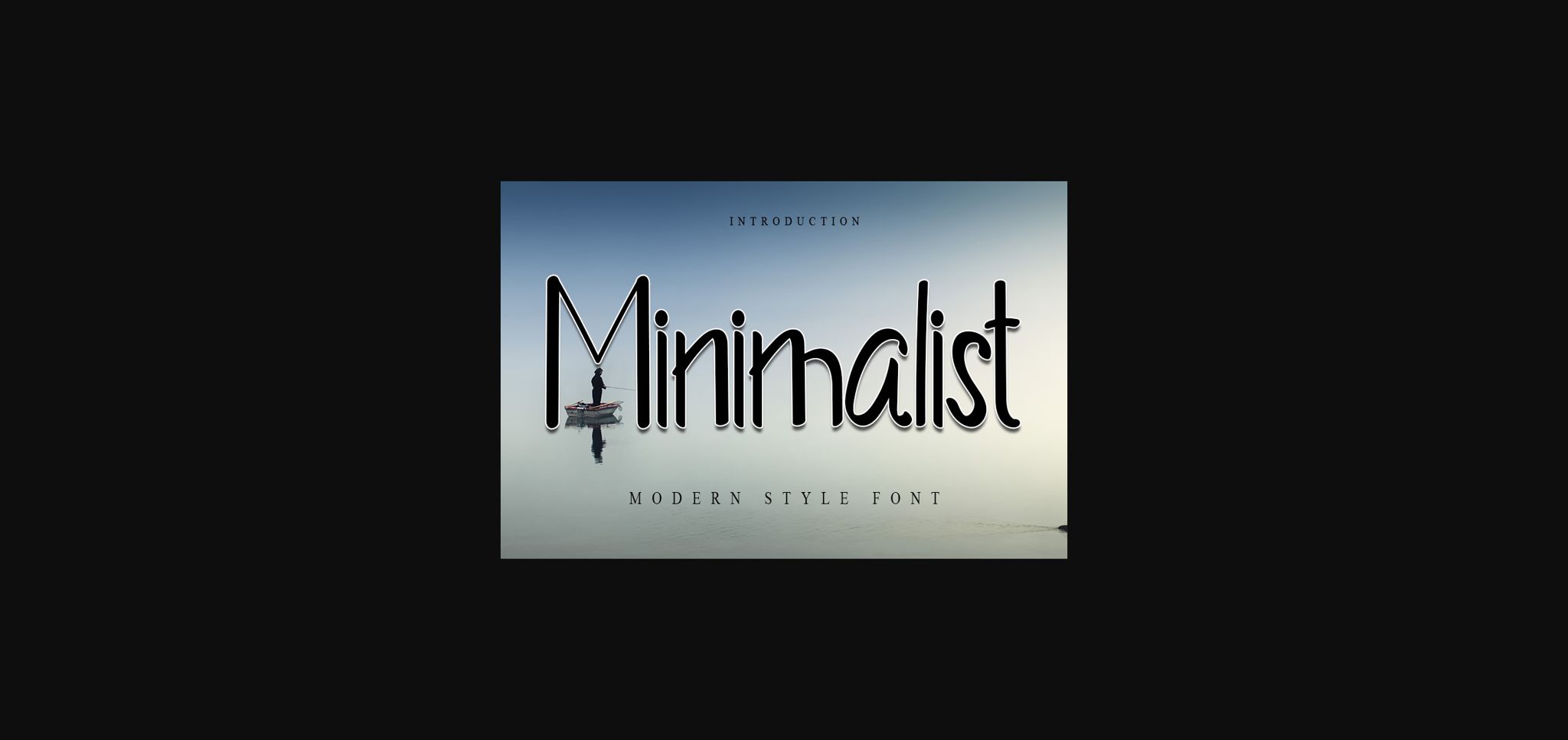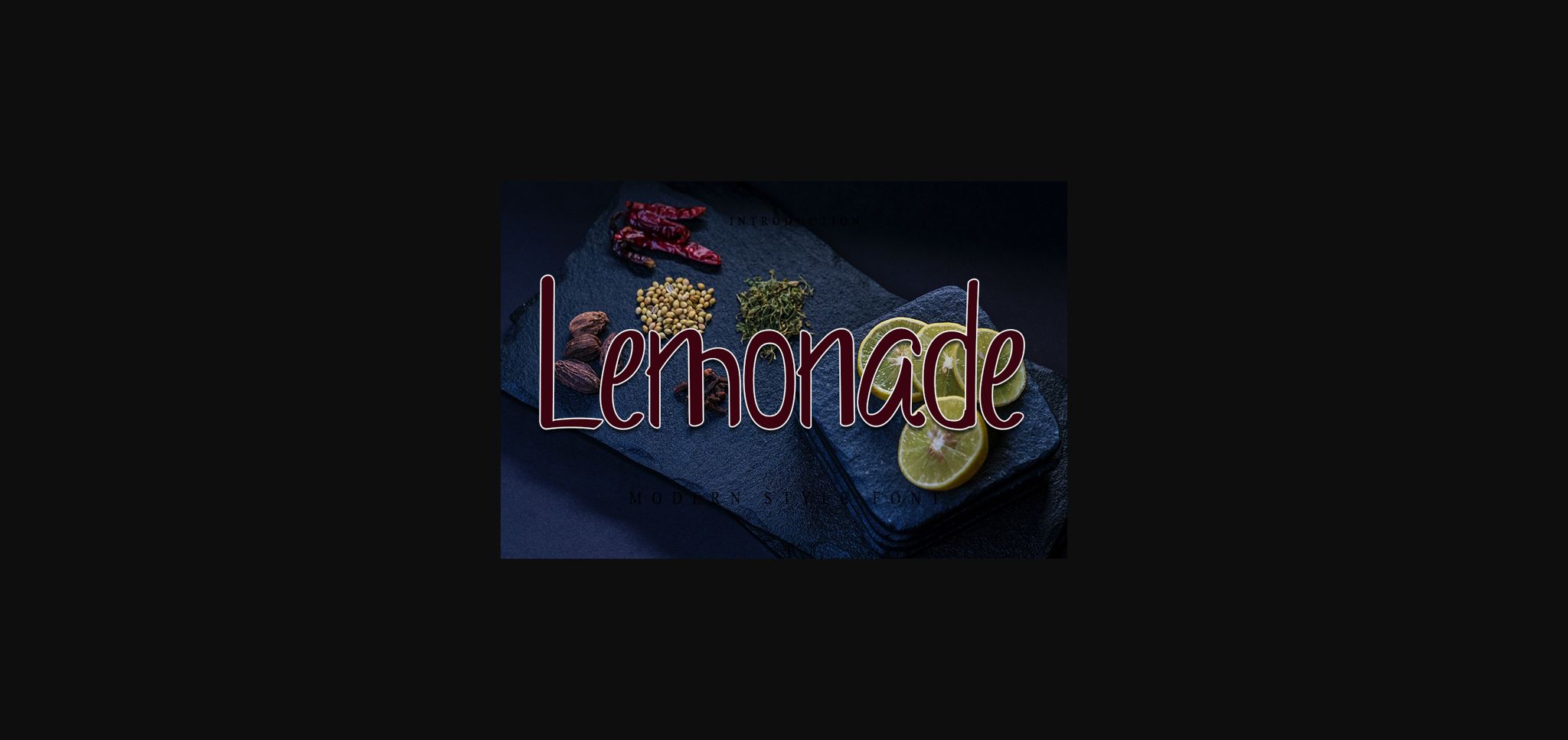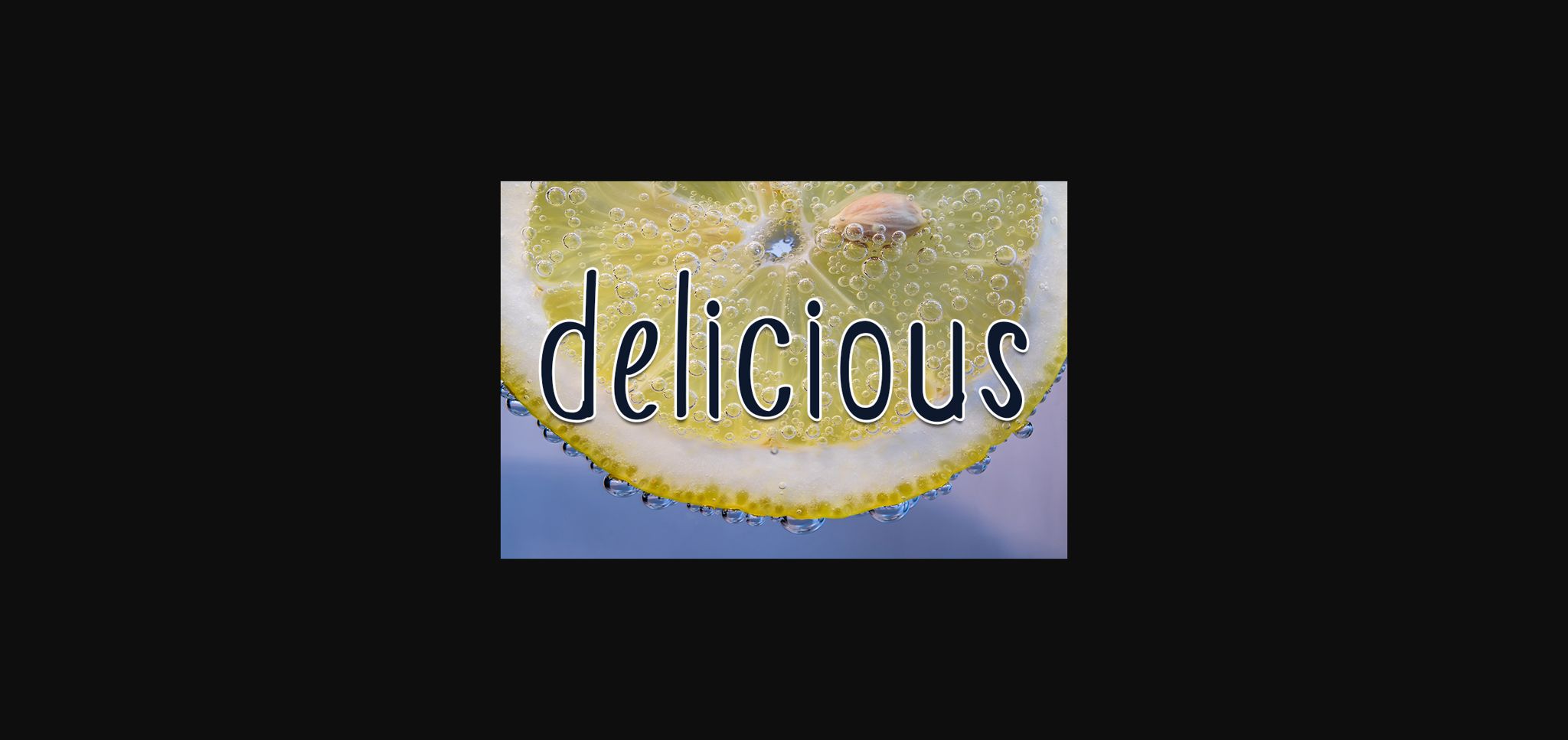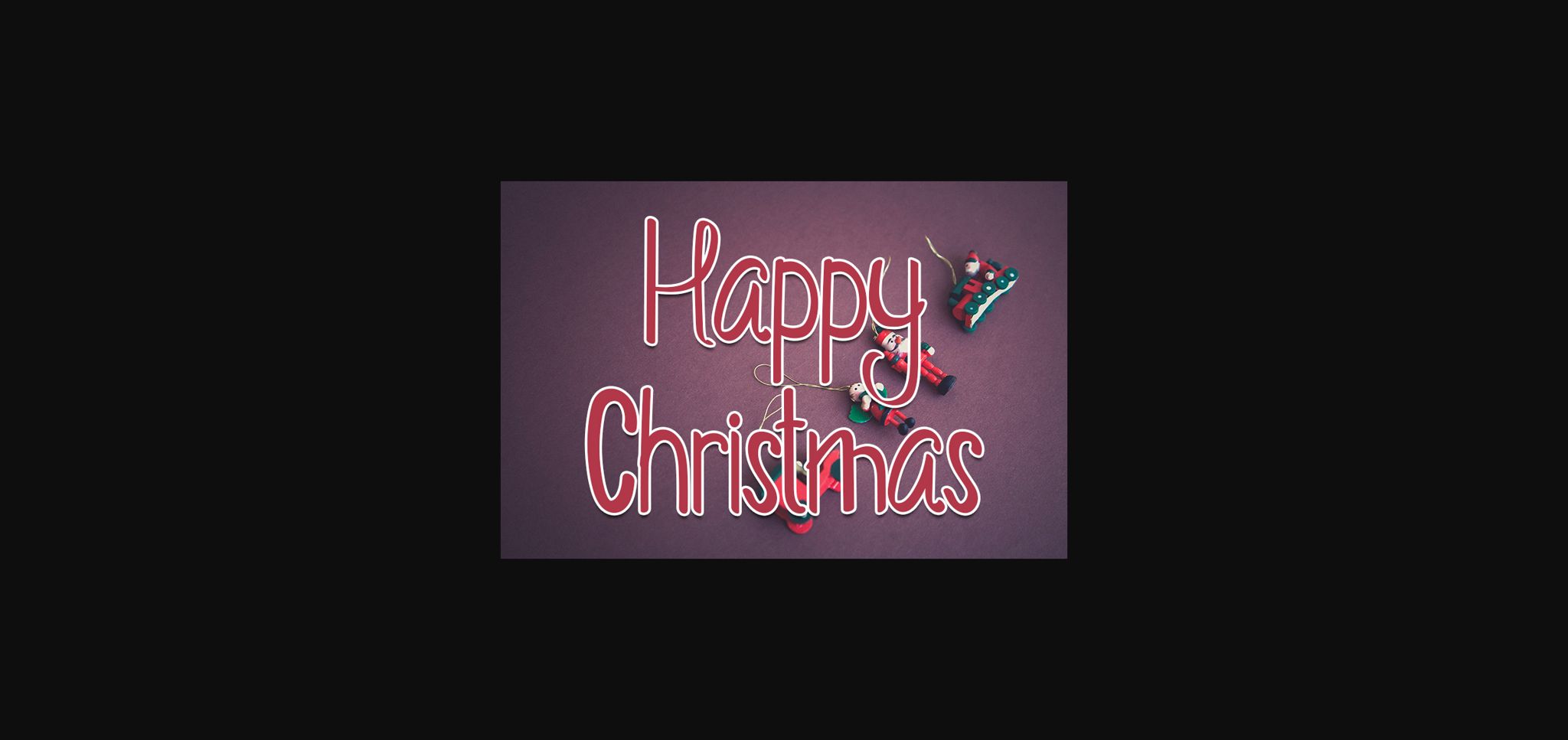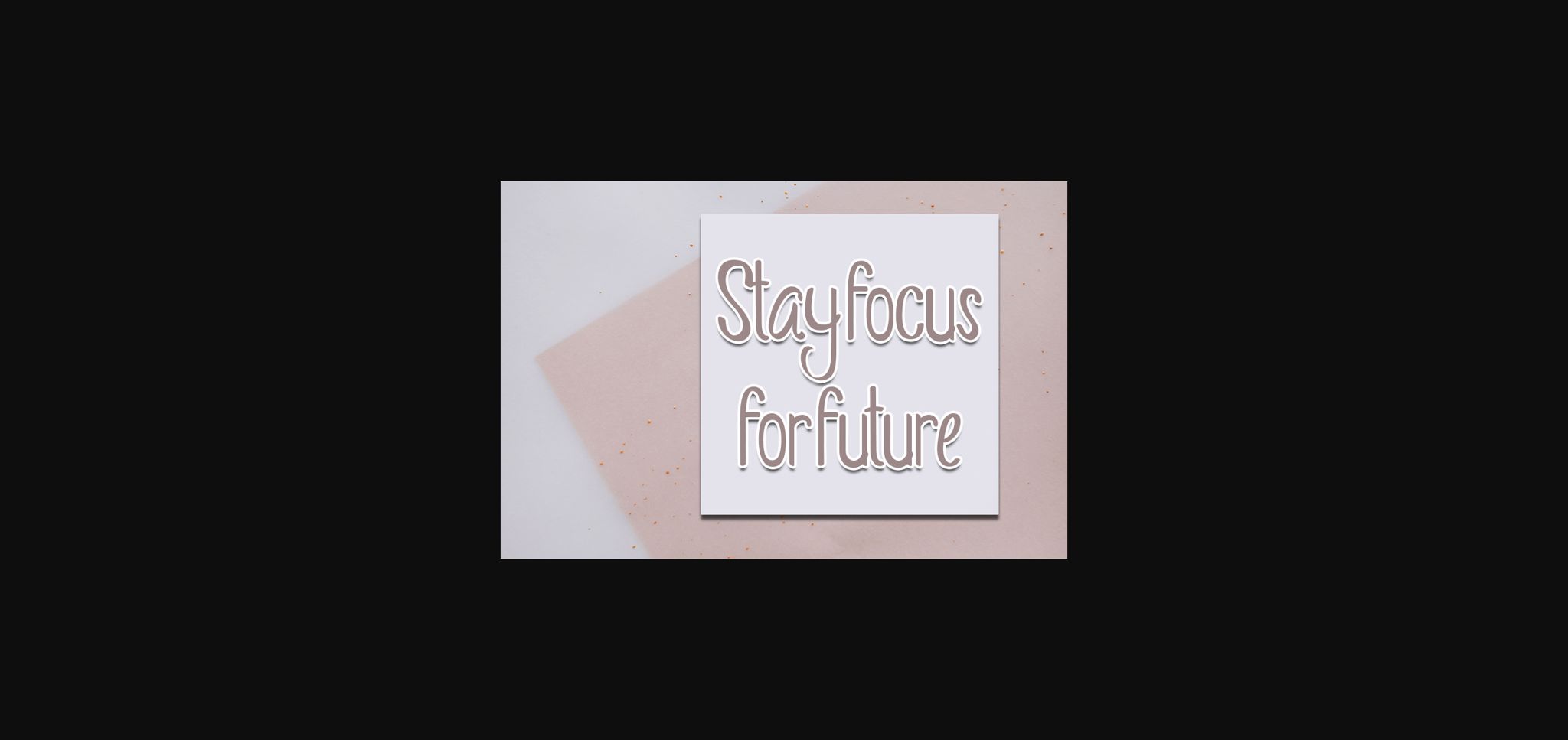
Minimalist is a simple and natural sans serif font. It is suitable for creating any branding, product packaging, invitation, quote, t-shirt, label, poster, logo that you wish to develop.